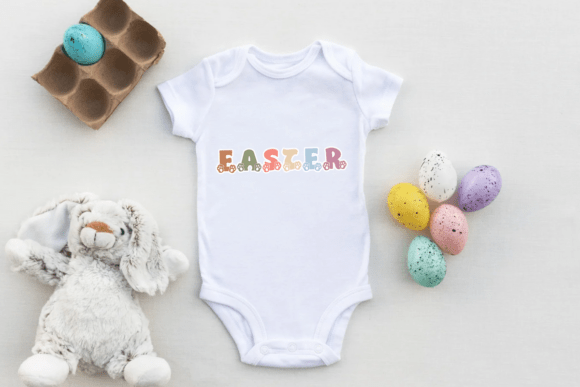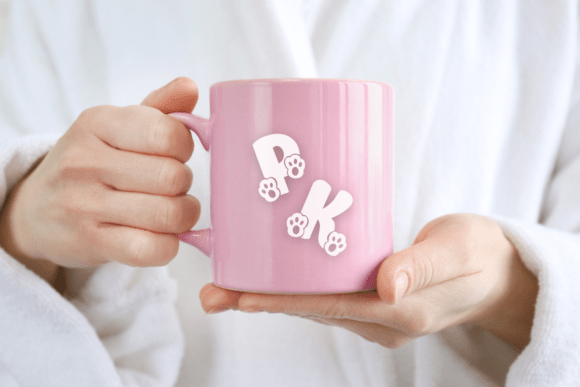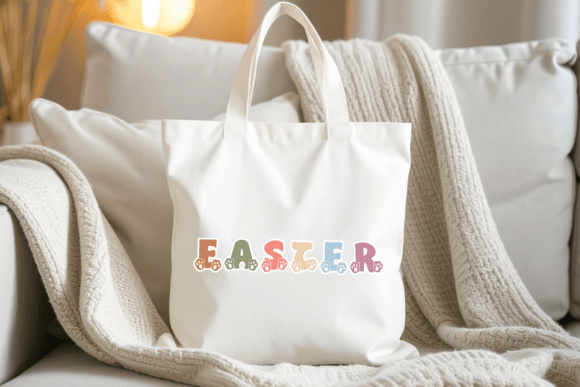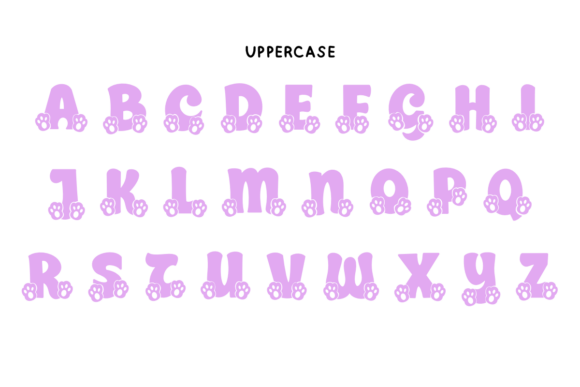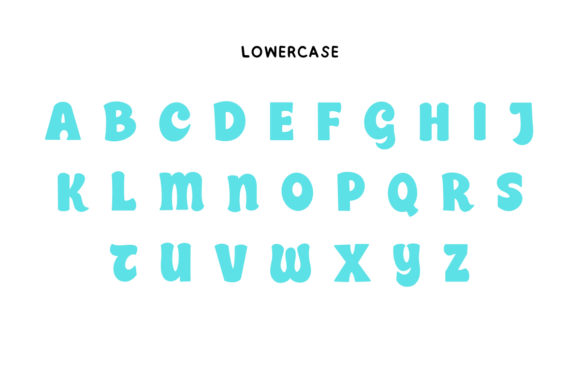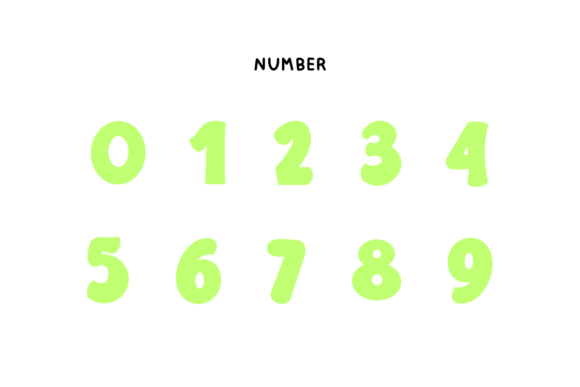
Happy Easter Bunny Font: Unleash Your Creativity with this Charming Typeface
Are you looking for a font that can add a touch of whimsy and delight to your designs? Look no further than the Happy Easter Bunny font! This handcrafted typeface is designed to bring a smile to your face and a spring to your step. With its unique blend of playfulness and sophistication, it’s the perfect choice for designers, crafters, and anyone looking to add some personality to their work.
The Story Behind the Font
The Happy Easter Bunny font is a labor of love, crafted with great attention to detail to create a truly unique and special typeface. Each letter is carefully hand-drawn to ensure that every stroke, curve, and flourish is perfect. The result is a font that is both elegant and playful, with a charm that is sure to captivate your audience.
Endless Possibilities
One of the best things about the Happy Easter Bunny font is its versatility. Whether you’re creating a vibrant banner, designing a logo, or simply writing a heartfelt greeting, this font is sure to bring your work to life. Its playful, handwritten style makes it perfect for a wide range of applications, from:
- Vibrant banners and posters
- Enticing content and social media posts
- Emblematic mugs and ceramics
- Standout stationery and greeting cards
- Trendy apparel and textiles
- Engaging blog posts and articles
Unleash Your Creativity
The Happy Easter Bunny font is more than just a typeface – it’s a tool to unleash your creativity and bring your ideas to life. With its unique and charming style, it’s the perfect choice for designers, crafters, and anyone looking to add some personality to their work. Whether you’re a seasoned pro or just starting out, this font is sure to inspire you to try new things and push the boundaries of your creativity.
Why Choose Happy Easter Bunny Font?
So why choose the Happy Easter Bunny font over other typefaces? Here are just a few reasons:
- Unique and charming style: The Happy Easter Bunny font has a one-of-a-kind style that is sure to capture your audience’s attention.
- Versatile: This font can be used for a wide range of applications, from digital designs to print materials.
- Handcrafted with attention to detail: Each letter is carefully hand-drawn to ensure that every stroke, curve, and flourish is perfect.
Get Ready to Hop into Creativity
In conclusion, the Happy Easter Bunny font is a must-have for designers, crafters, and anyone looking to add some personality to their work. With its unique and charming style, versatility, and ease of use, it’s the perfect choice for a wide range of applications. So why not give it a try? Immerse yourself in the delightful charm of the Happy Easter Bunny font and discover a world of creativity and possibility.